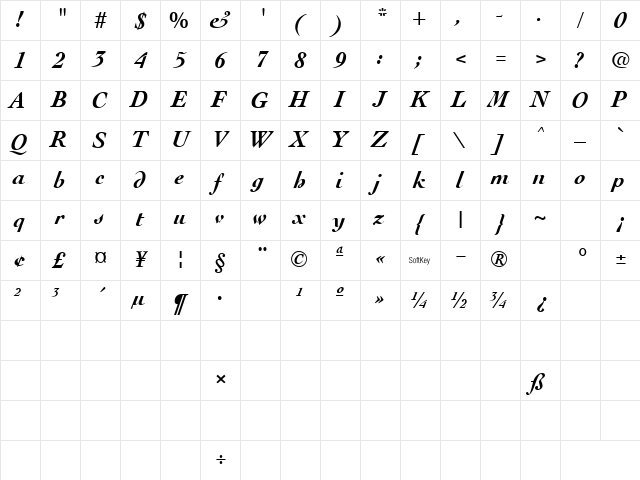
Cocktail Bold Italic Free Font
Cocktail Bold Italic
Design Context for Cocktail
Cocktail is a composed and adaptable typeface that performs quietly and consistently across a wide range of design contexts. The slanted form adds forward momentum and visual energy. Its bold stroke weight gives it real presence on the page.